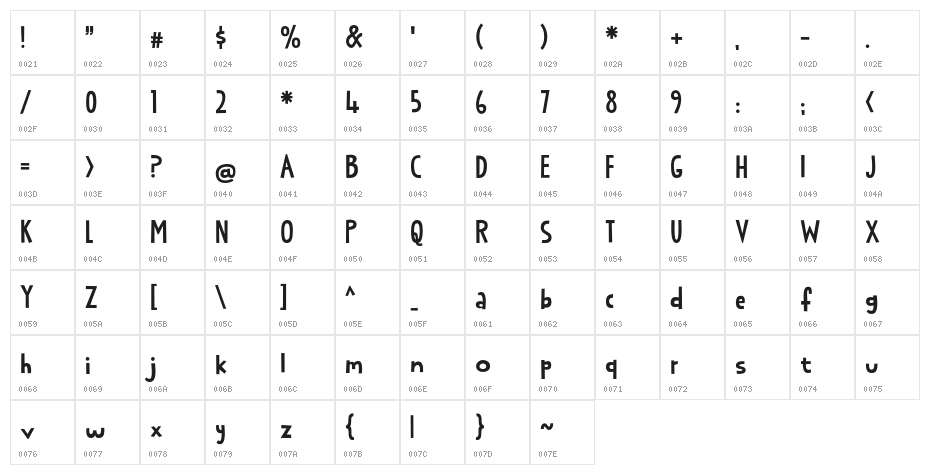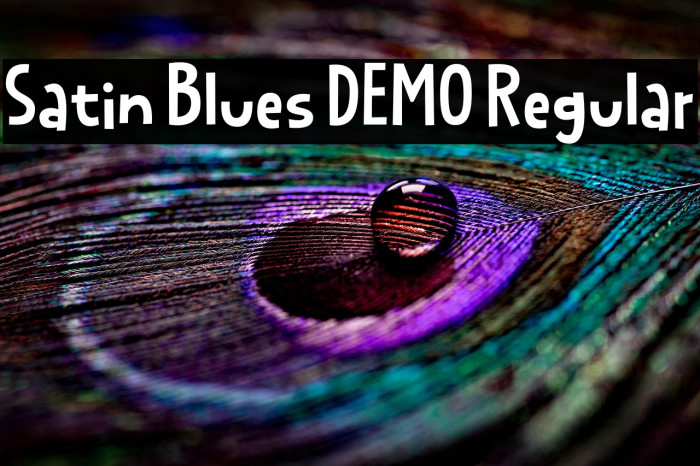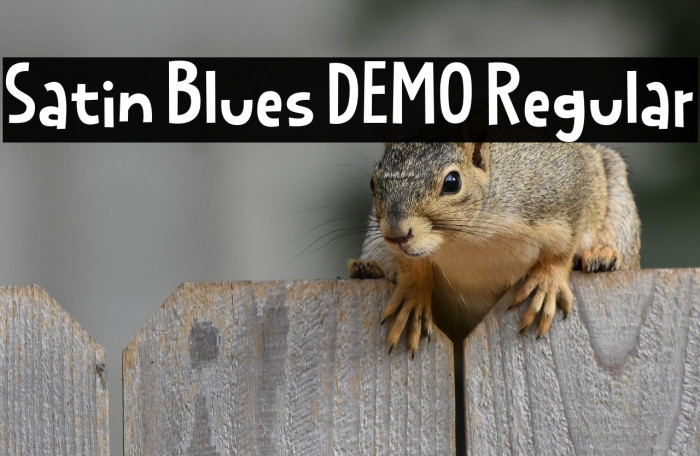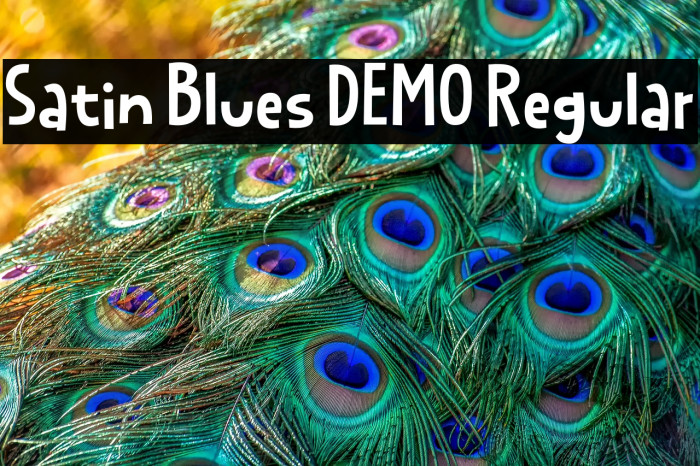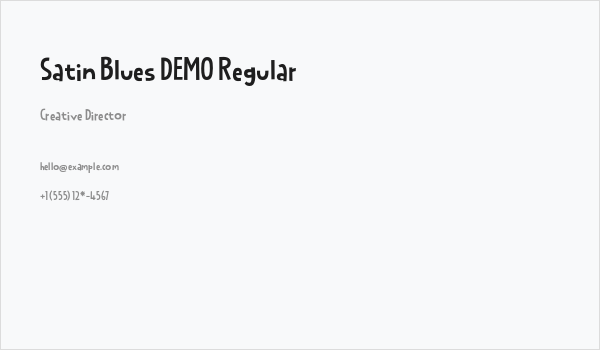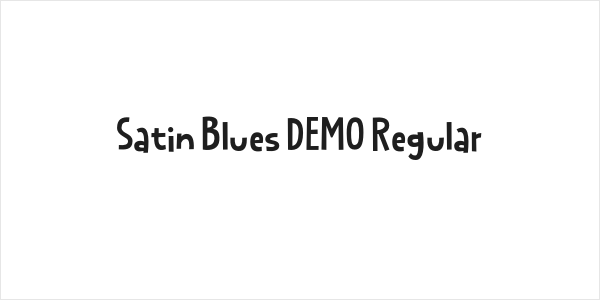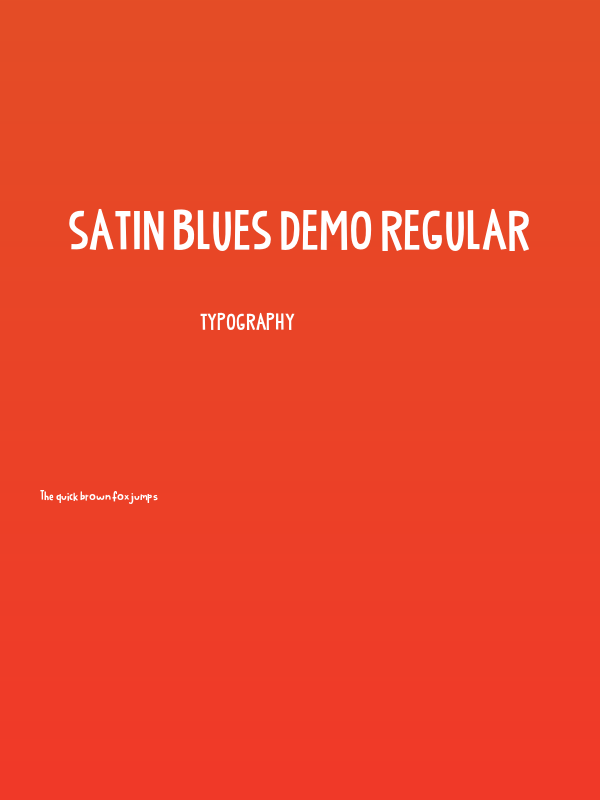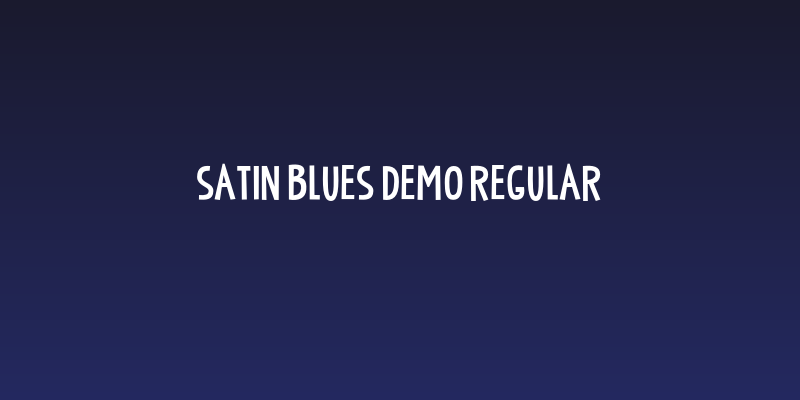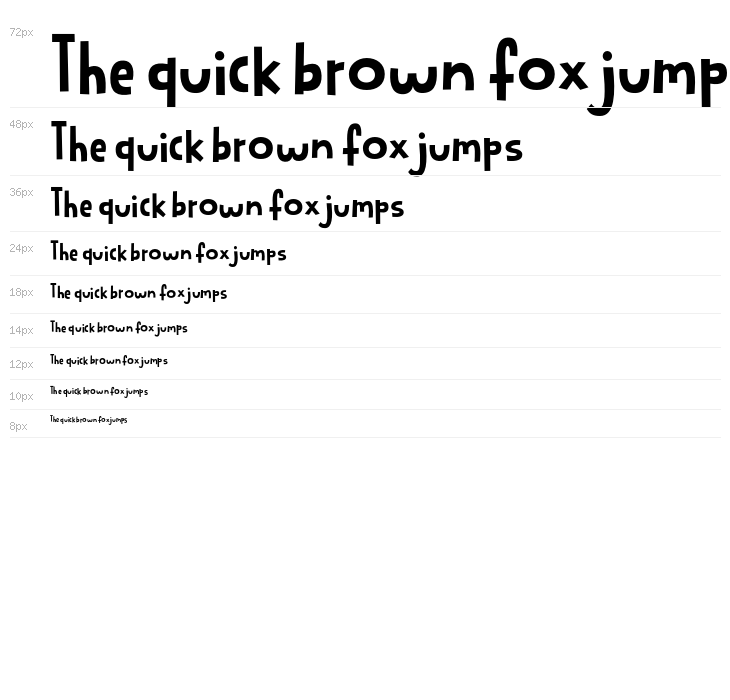
Satin Blues DEMO Regular Font
Satin Blues DEMO Regular Description
This font features a playful and bold design with a slightly irregular and hand-drawn appearance. The uppercase letters are tall and narrow, while the lowercase letters maintain a consistent height, giving the font a cohesive look. The characters have a whimsical flair, with some letters featuring unique curves and angles that add to its charm. The numbers are well-proportioned and align seamlessly with the overall style. Special characters are creatively designed, maintaining the font's playful aesthetic. This font is ideal for projects that require a fun and engaging visual appeal.
| Proposed Projects | Ideal for children's books, playful branding, posters, and creative invitations. |